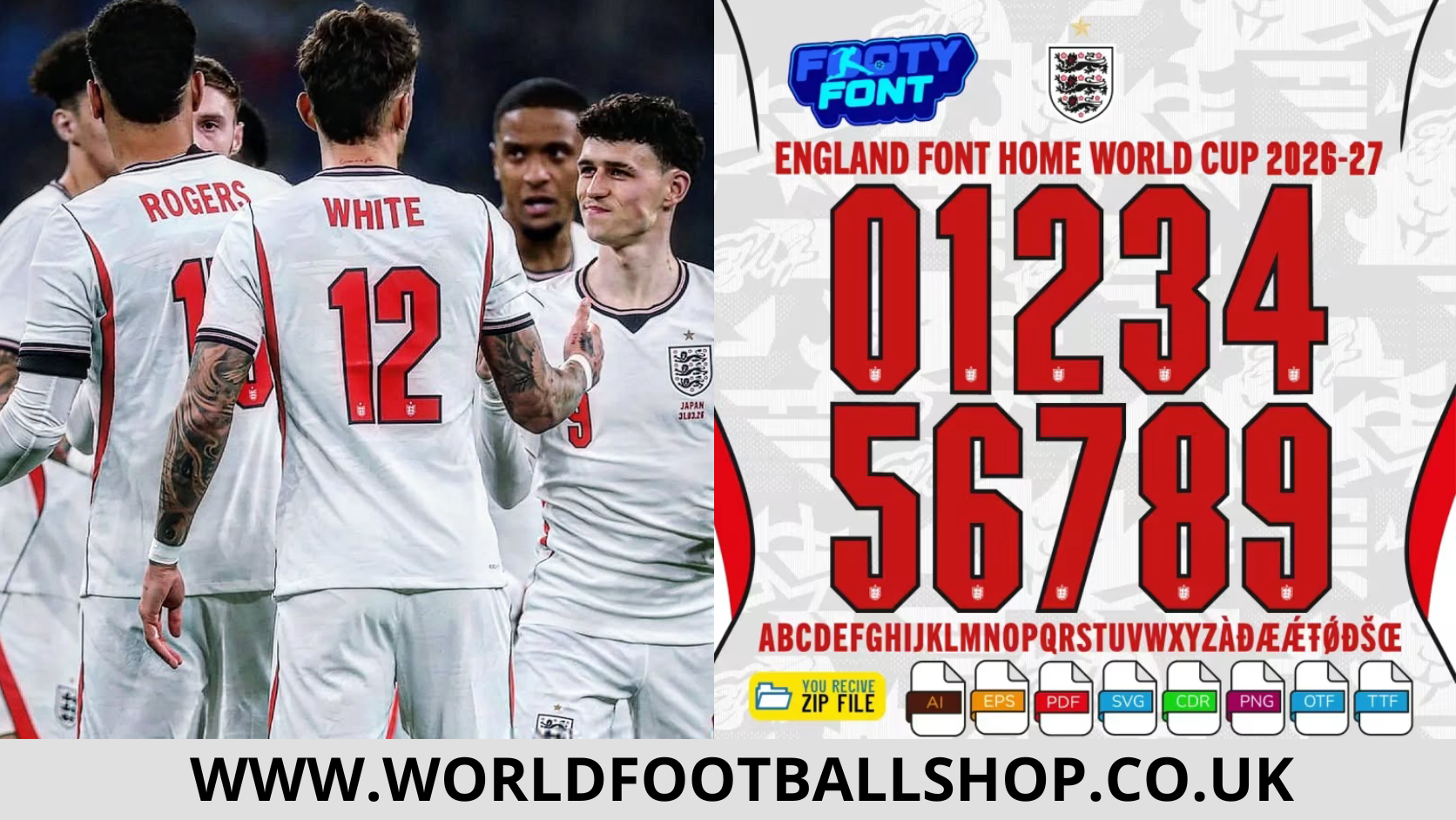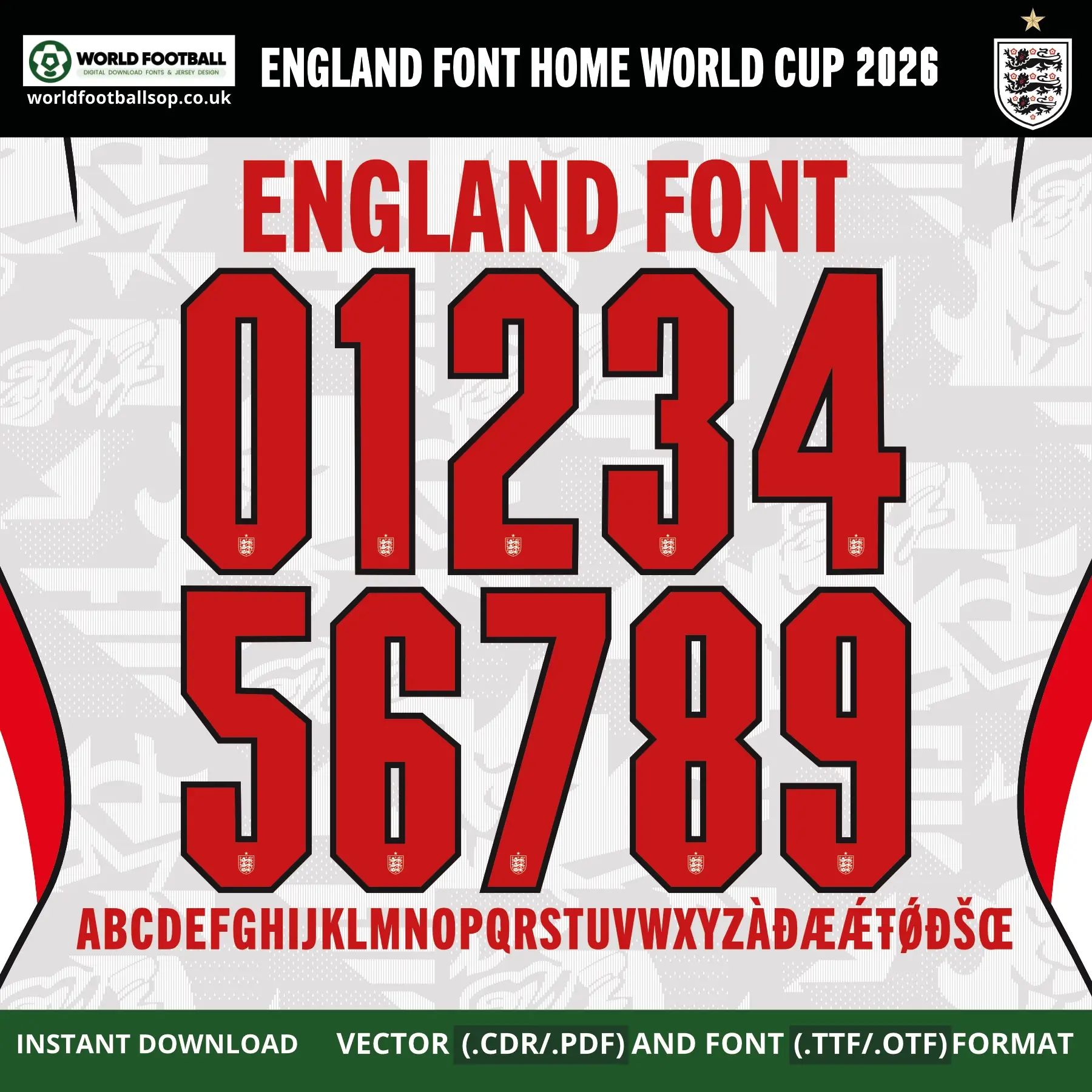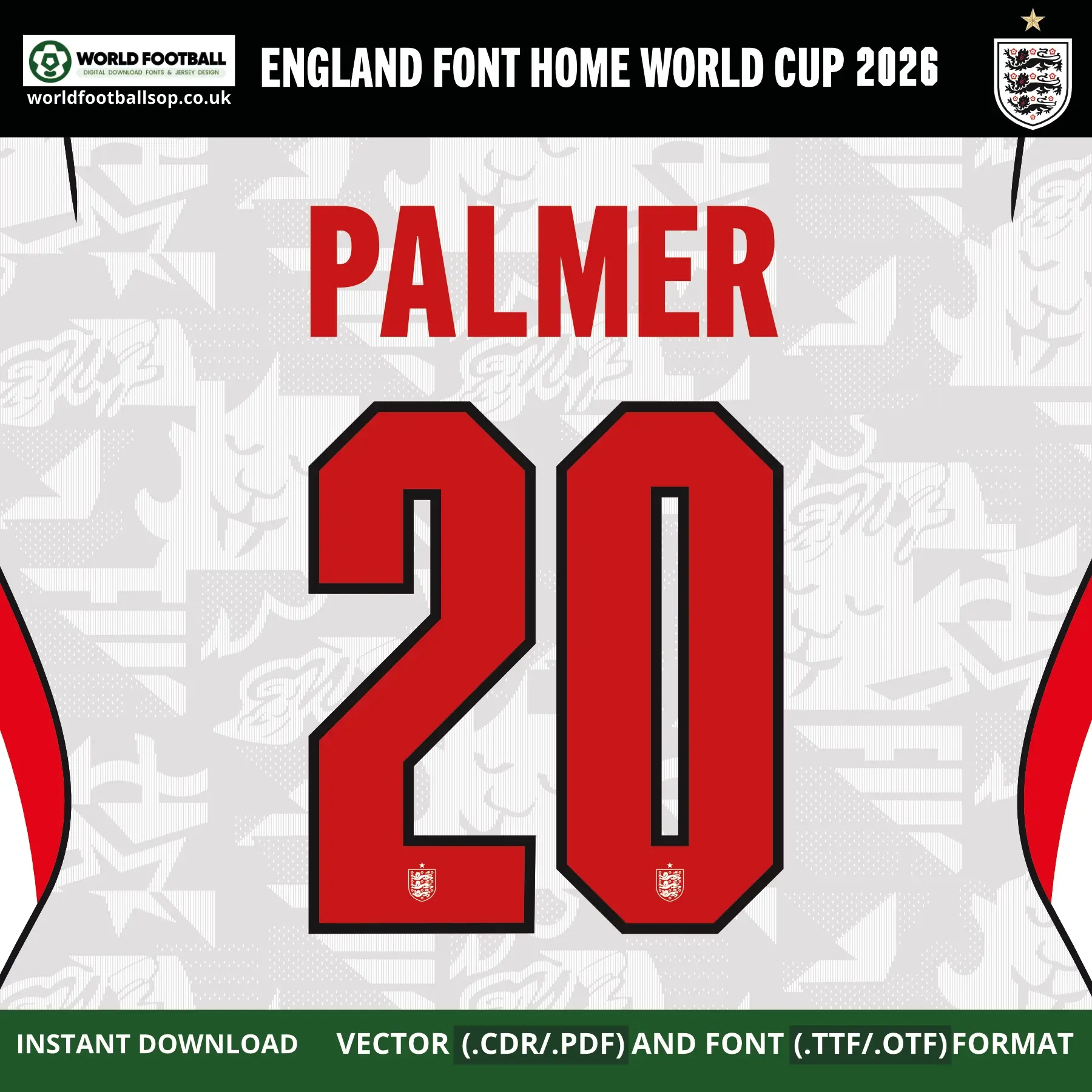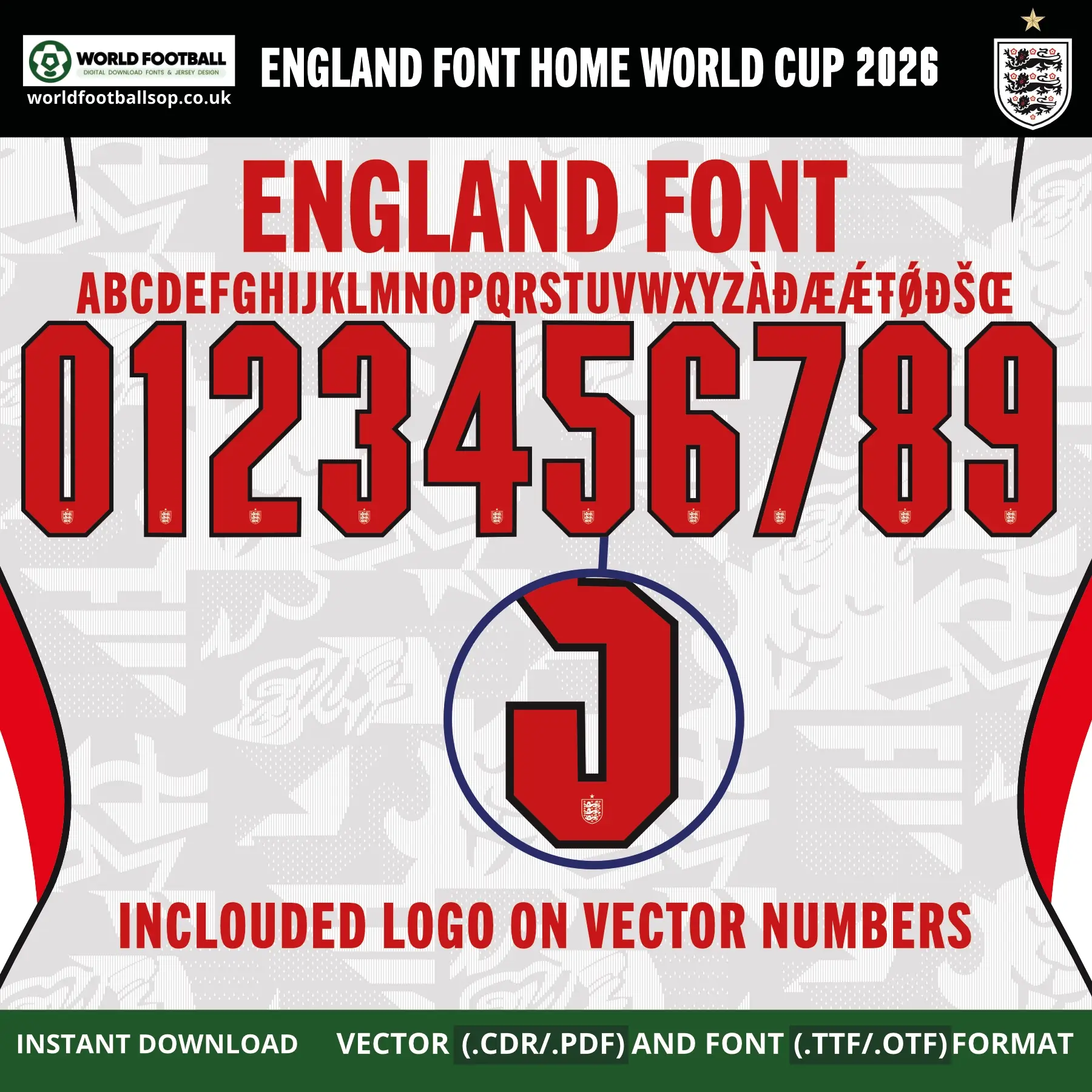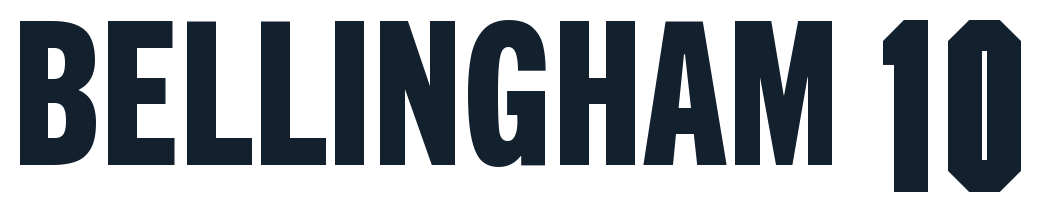
England Font Home World Cup 2026 – Classic Red on White
The England Font Home World Cup 2026 pack is based on Nike’s official kit font for the Three Lions’ all‑white home strip. Your design uses tall, blocky letters with sharp, angular corners that echo traditional 1990s English shirt Font Football while still feeling clean and modern. On your covers, the digits appear in bright red with a dark outline over a patterned white background featuring tonal lions and stars, matching the textured fabric of the 2026 home jersey.
Full uppercase A-Z alphabet plus extended characters (Å Ä Æ É Ő Đ Š Č, etc.) to cover British and international player names.
Numbers 0-9 in official home style, scaled for back printing and adaptable for shorts or sleeve applications.
Retro block style: Bold, squared shapes with tight counters give a classic, no‑nonsense English look inspired by historic tournament fonts.
Red and white identity: Bright red digits with dark edging stand out crisply on the white home shirt with its subtle lion‑patterned jacquard.
High readability: Straight cuts and generous line widths ensure excellent visibility in stadiums and on TV broadcasts.